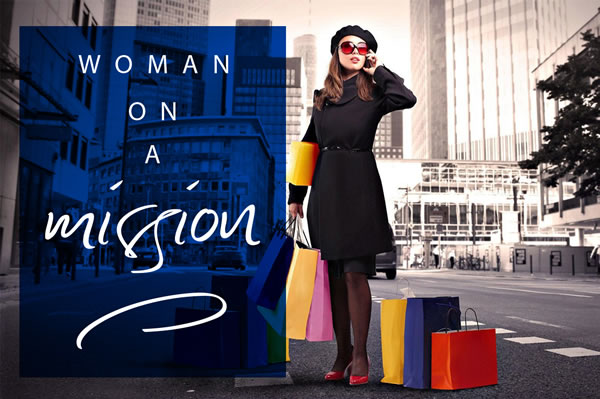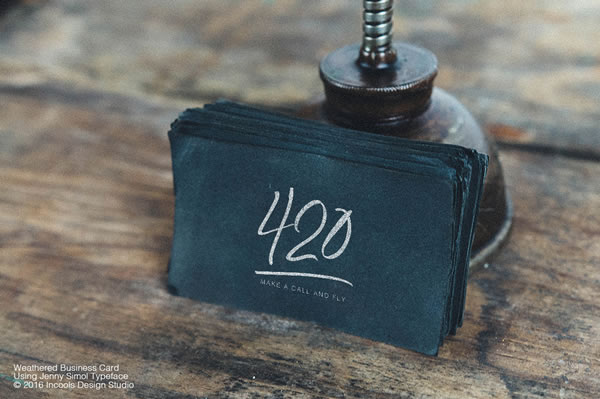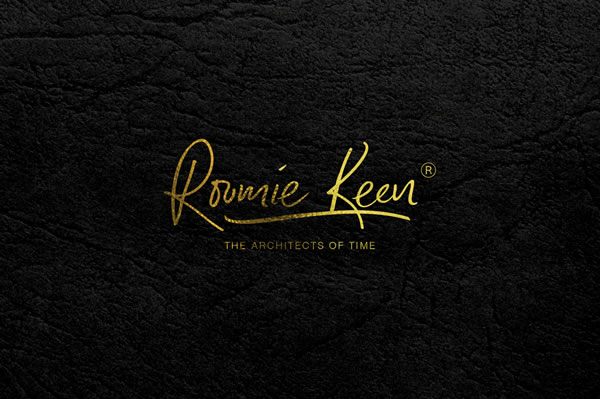
Introduction to Jenny Simol Font Font
Fonts play a crucial role in design, and the Jenny Simol Font font is a typeface that brings both character and versatility to any project. Whether you’re working on a branding project, a website, or a print design, the Jenny Simol Font font offers a unique style that can elevate your work.
Jenny Simol is a natural handwritten script font created by the Incools Design Studio.
Jenny Simol is a natural handwritten script font created by the Incools Design Studio. This fluid font comes with 2 fonts: Jenny Simol Regular Jenny Simol Swashes
Key Features of Jenny Simol Font Font
Why Choose Jenny Simol Font Font?
The Jenny Simol Font font is more than just a typeface – it’s a design tool that helps you communicate your message with style and clarity. Its unique character set and versatile design make it suitable for a wide range of applications, from elegant invitations to bold headlines.
With its carefully crafted letterforms and balanced proportions, the Jenny Simol Font font ensures readability and visual appeal across all mediums.
What makes Jenny Simol Font font special?
The Jenny Simol Font font stands out with its unique design, exceptional readability, and versatility across various design applications.